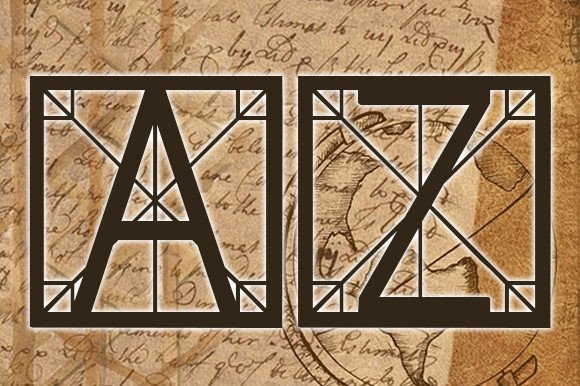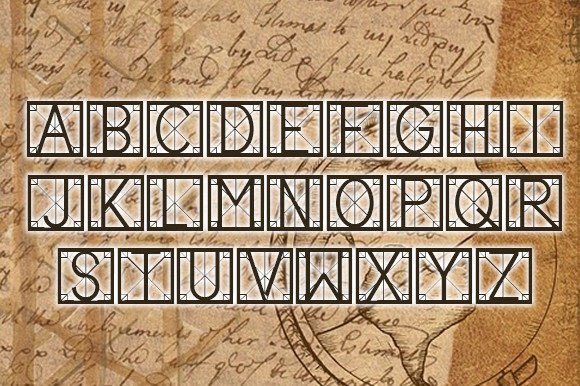
Introduction to Processor Font
Processor is stylish grid font that will look awesome on any of Your designs.
Use this font on posters, flyers, t-shirts social media, banners and more .
Key Features of Processor Font
Why Choose Processor Font?
Processor Font offers exceptional quality and versatility, making it a valuable addition to your design toolkit. Whether you’re creating for personal projects or commercial use, Processor Font delivers professional results.